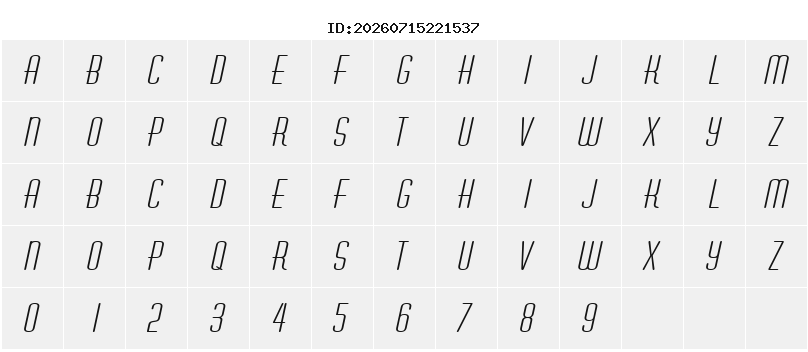
AstaireExtended.ttf is a modern, elegant sans-serif font designed for ultimate readability and visual harmony. Perfect for branding, headlines, web design, and print materials.